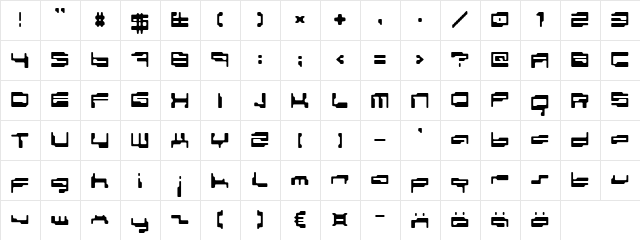
personal computer Regular
Design Context for personal computer Typeface
personal computer is a composed and adaptable typeface that performs quietly and consistently across a wide range of design contexts.